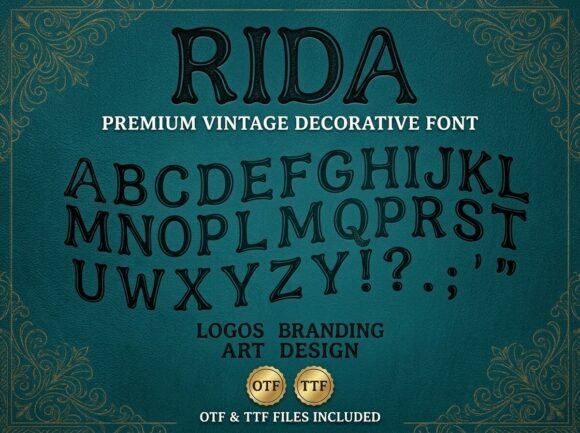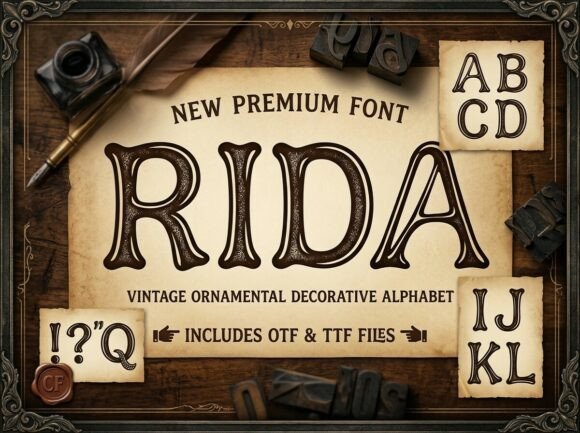
Introduction to Rida Font Font
Fonts play a crucial role in design, and the Rida Font font is a typeface that brings both character and versatility to any project. Whether you’re working on a branding project, a website, or a print design, the Rida Font font offers a unique style that can elevate your work.
Step back in time with Rida, a premium vintage decorative font designed to bring a touch of old-world prestige to your modern projects.
Featuring elegant, high-contrast serif forms with unique flared terminals, this typeface exudes a sense of heritage and artisanal craftsmanship Rida is the quintessential choice for designers who need a balance of authority and decorative flair.
Key Features of Rida Font Font
Why Choose Rida Font Font?
The Rida Font font is more than just a typeface – it’s a design tool that helps you communicate your message with style and clarity. Its unique character set and versatile design make it suitable for a wide range of applications, from elegant invitations to bold headlines.
With its carefully crafted letterforms and balanced proportions, the Rida Font font ensures readability and visual appeal across all mediums.
What makes Rida Font font special?
The Rida Font font stands out with its unique design, exceptional readability, and versatility across various design applications.